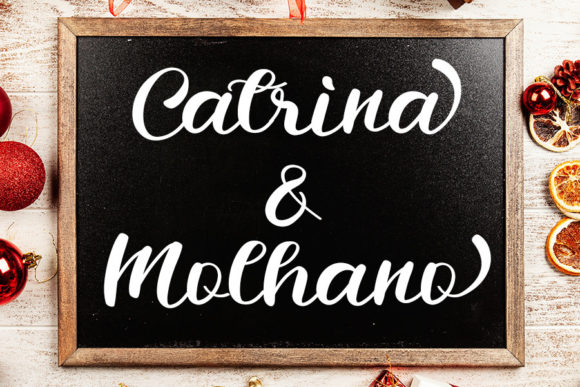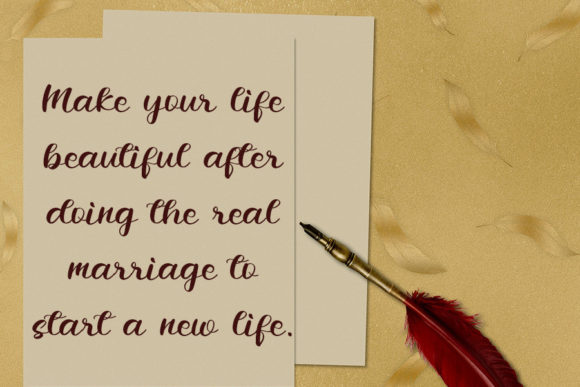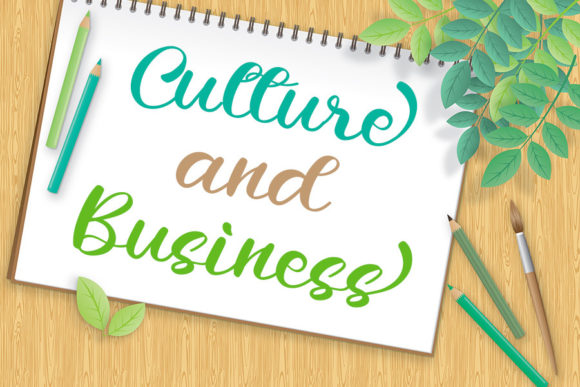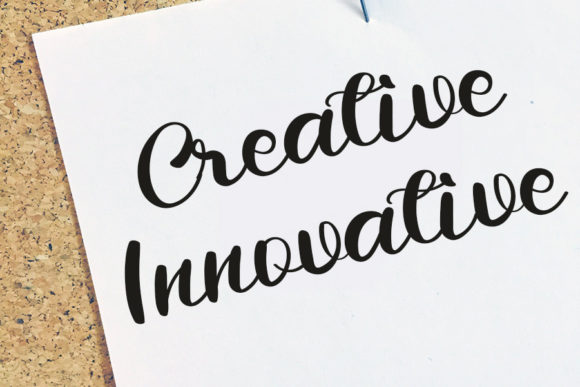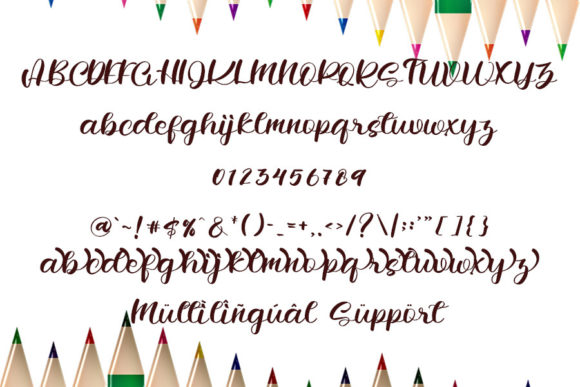
Introduction to Kobla Font
Kobla is a beautiful and cursive script font.
It is PUA encoded, which means that you can access all of the glyphs swashes effortlessly Add this font to your library, and in no time, it will become your favorite option.